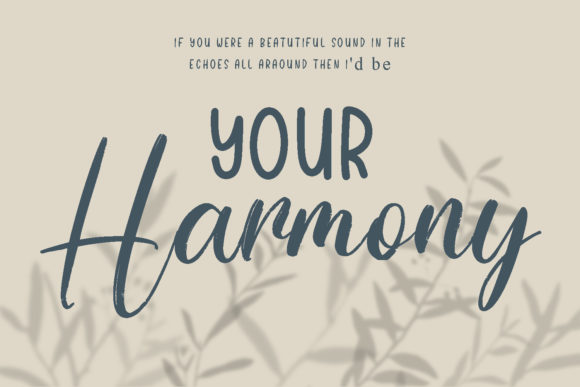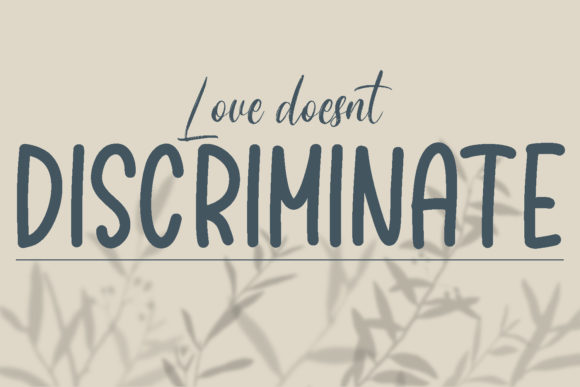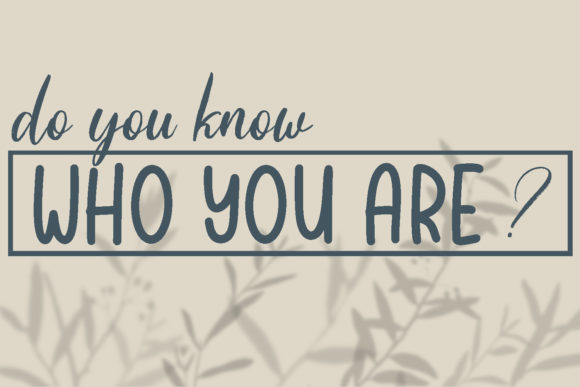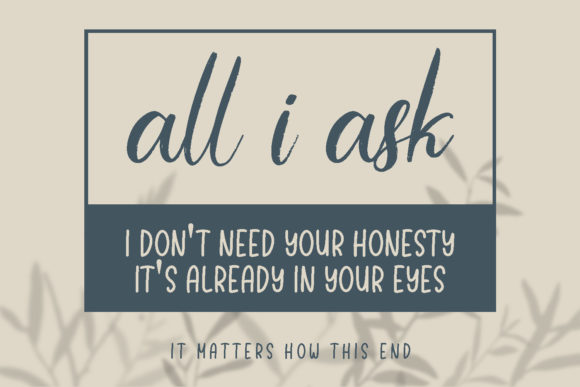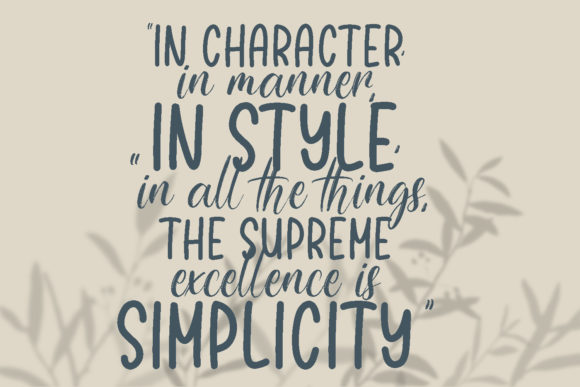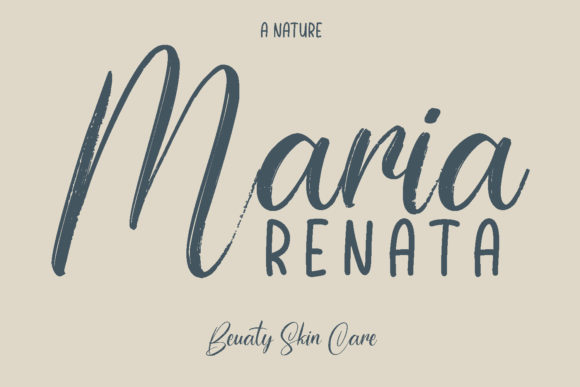
Introduction to Chorustyle Duo Font
Have you ever stared at a blank canvas, waiting for inspiration to strike? The silence can be deafening, but sometimes it’s in those quiet moments that creativity sparks. For designers, finding the perfect font can be the missing piece that brings a project to life. Enter the Chorustyle Duo Font, a game-changing duo that’s about to become your new best friend.
Imagine a font that’s both stylish and approachable, with a unique blend of script and sans serif styles that work harmoniously together. The Chorustyle Duo Font is a design resource that’s perfect for creatives looking to add a touch of personality to their high-quality projects. And the best part? It’s available for free download, making it a valuable addition to any designer’s toolkit.
Key Features of Chorustyle Duo Font
- High-quality, hand-drawn design perfect for creative projects and designs.
- Features a unique, transparent background that allows for seamless layering and customization.
- Designed to be highly versatile, suitable for a wide range of creative applications, from digital art to print media.
Honest Review: Chorustyle Duo Font
I recently had the chance to work with the Chorustyle Duo Font, and I must say it’s been a great addition to my design resource library. This font is perfect for creative projects that require a touch of elegance and sophistication.
What works well: ✨ The font’s versatility and high quality make it suitable for a wide range of applications, from headings to body text. I particularly appreciate the transparent background option, which allows for seamless integration with any design element. The font also comes with a free download, making it an excellent choice for designers on a budget.
- High-quality design for a professional look
- Suitable for creative projects, including headings and body text
⚠️ One limitation I noticed is that the font might not be suitable for projects that require a bold, attention-grabbing font. However, for most creative projects, the Chorustyle Duo Font is an excellent choice.
Overall, I’m impressed with the Chorustyle Duo Font. Its high quality, versatility, and free download make it a valuable design resource for any designer. Give it a try and see how it can elevate your next creative project!
Tips for Getting the Most Out of Chorustyle Duo Font
Here are a few tips for getting the most out of the Chorustyle Duo Font:
- Use the font on a transparent background to create a clean and modern look.
- Experiment with different font sizes and styles to add visual interest to your design.
- Combine the font with other design elements, such as images and shapes, to create a unique and eye-catching design.
Common Use Cases for Chorustyle Duo Font
The Chorustyle Duo Font is a versatile design resource that can be used in a variety of applications, including:
- Graphic design projects.
- Social media graphics.
- Presentations and documents.
- Branding and marketing materials.